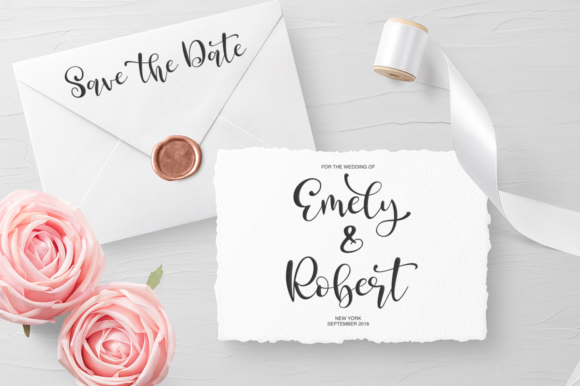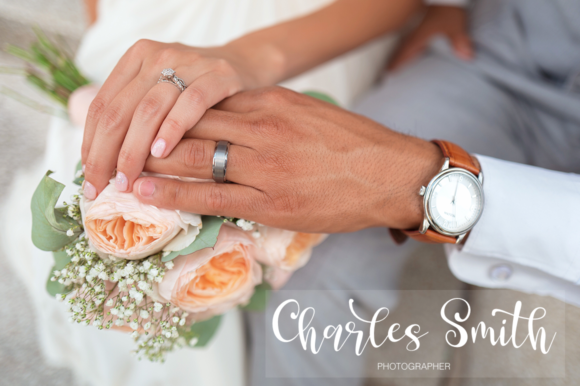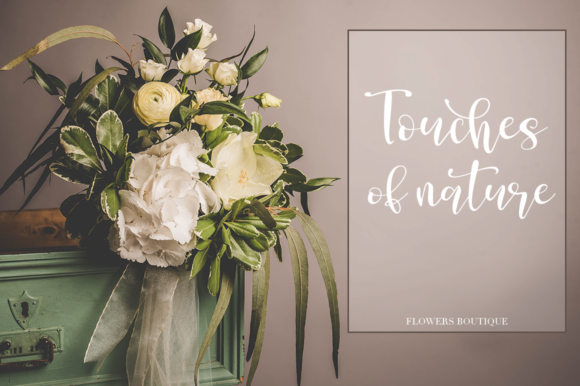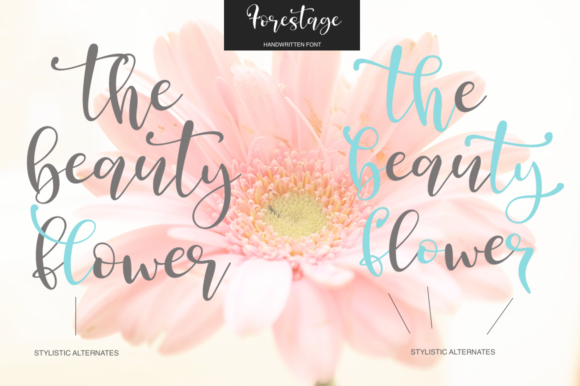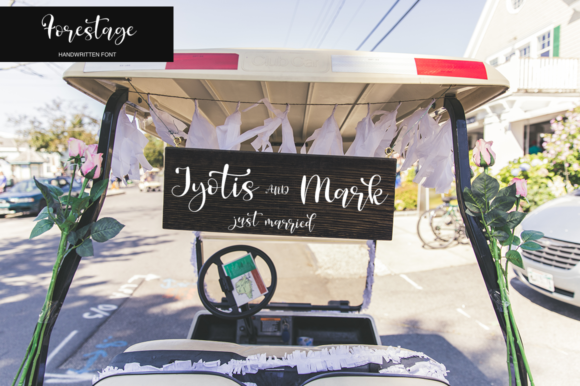
Forestage Font
About Forestage Font
Forestage is a fresh handmade script, which is perfect for branding and adding a personal touch to your designs.
It’s also very well suited for personal projects, such as wedding invites, thank you notes, nursery rhymes and much more.